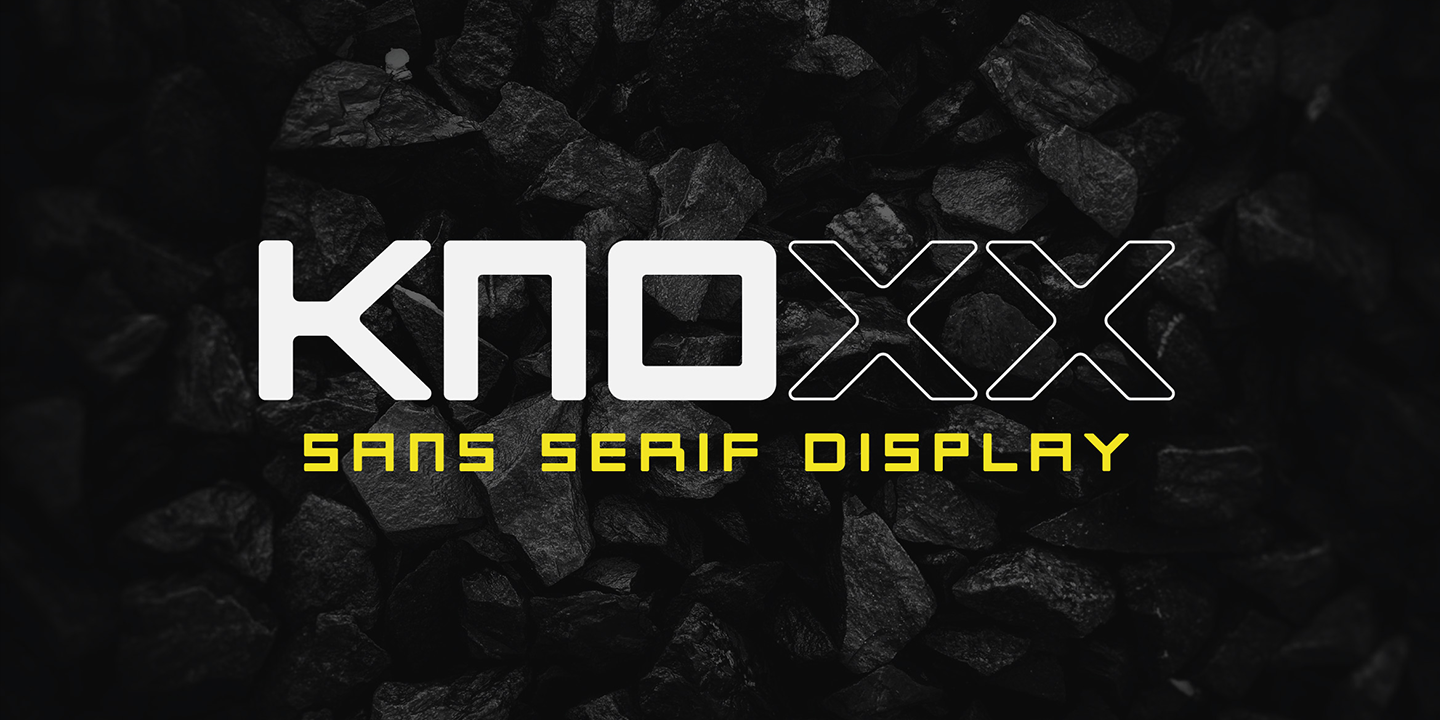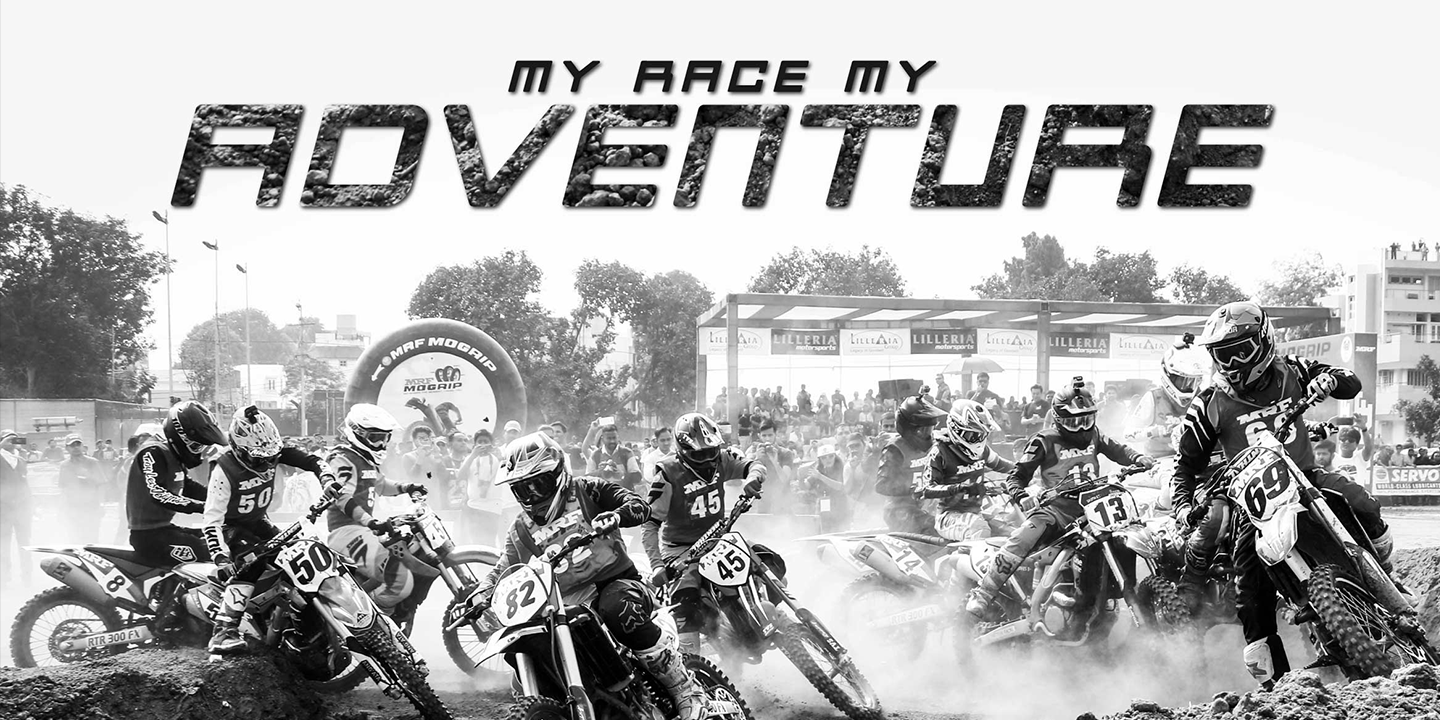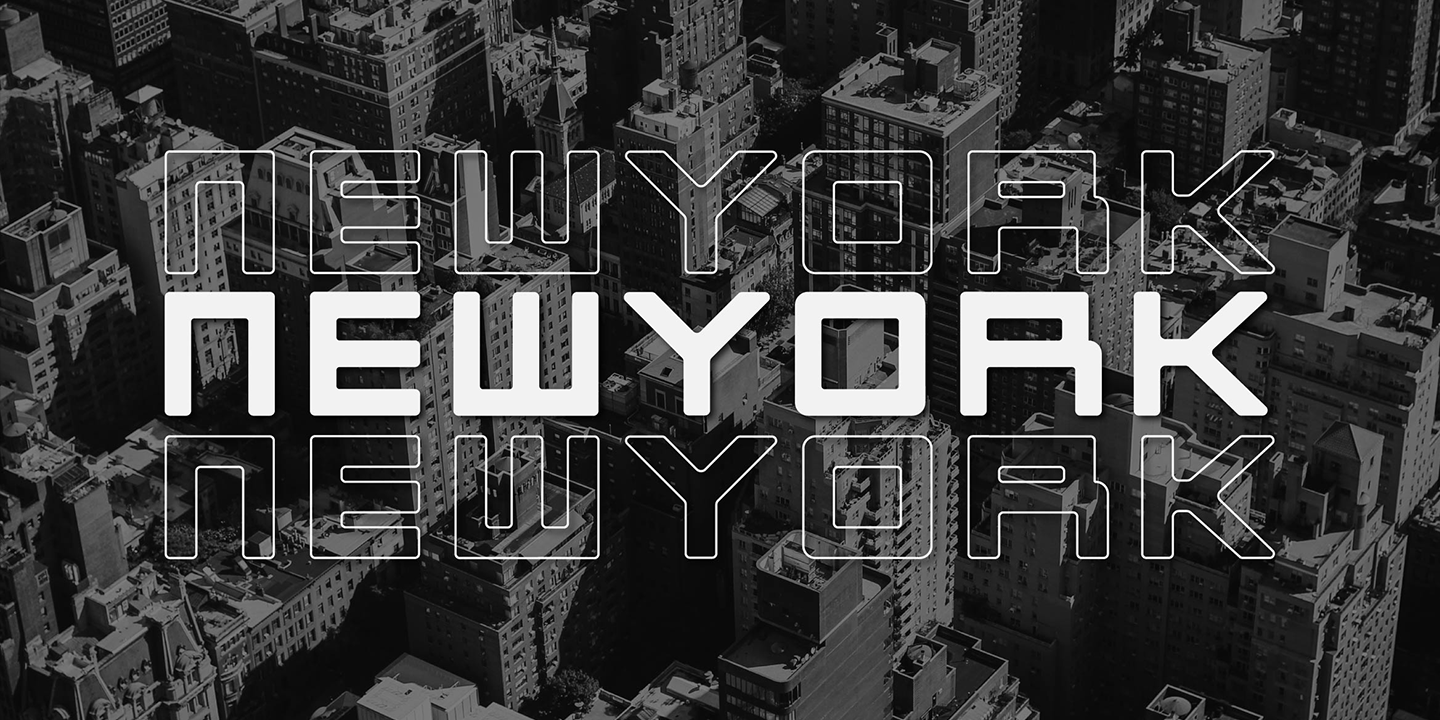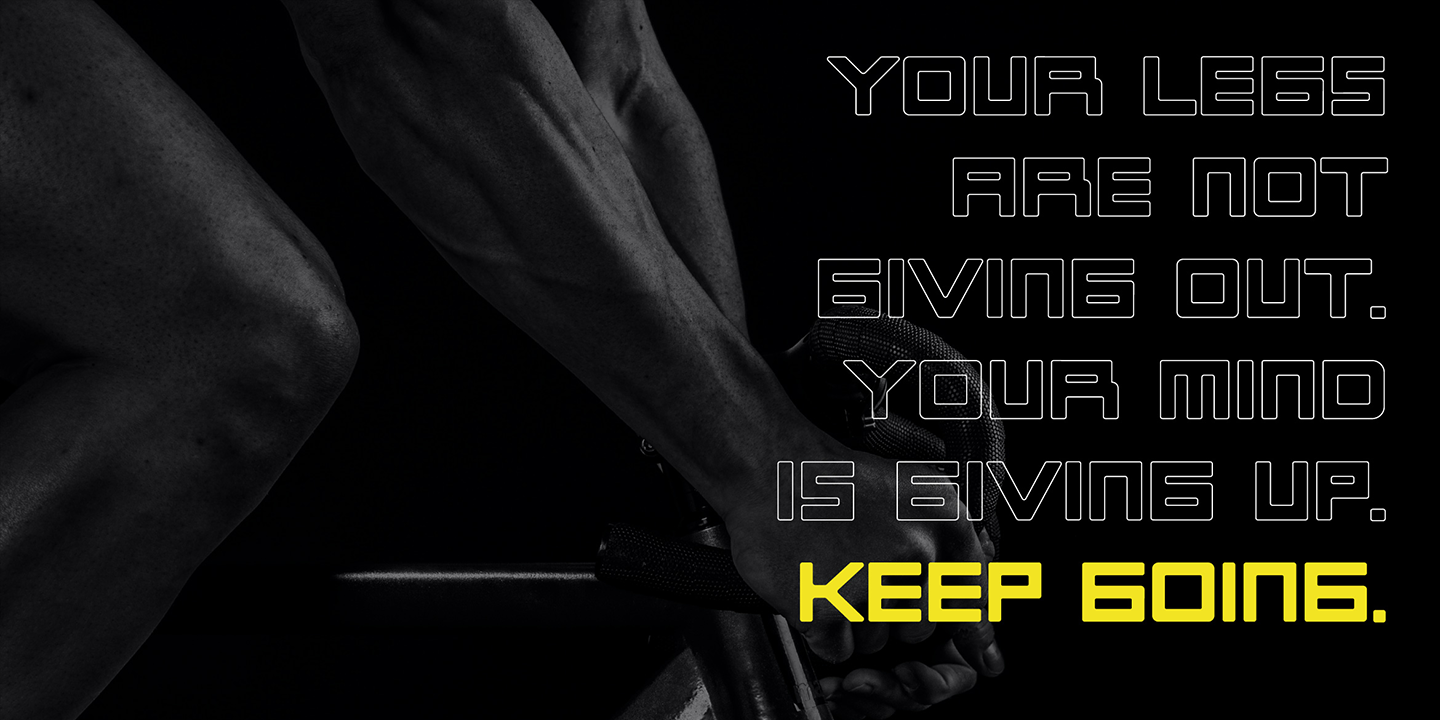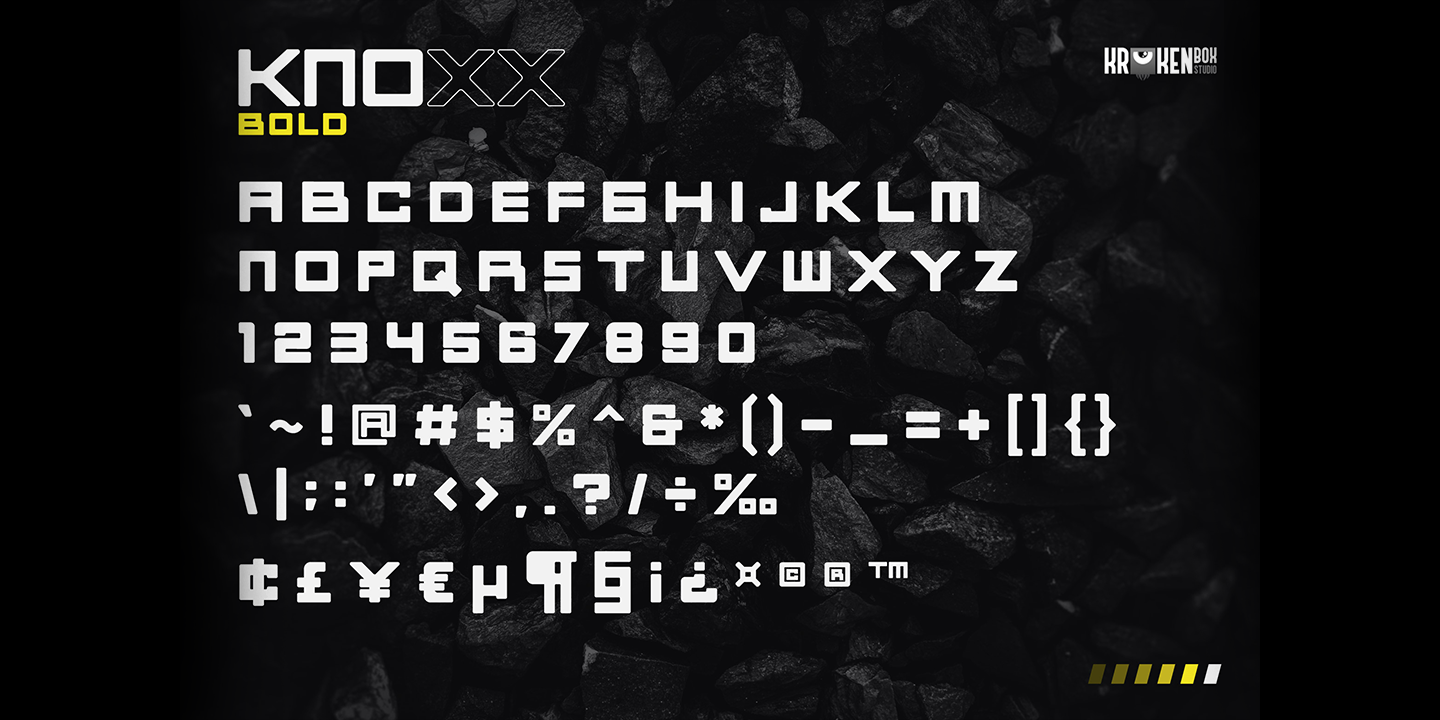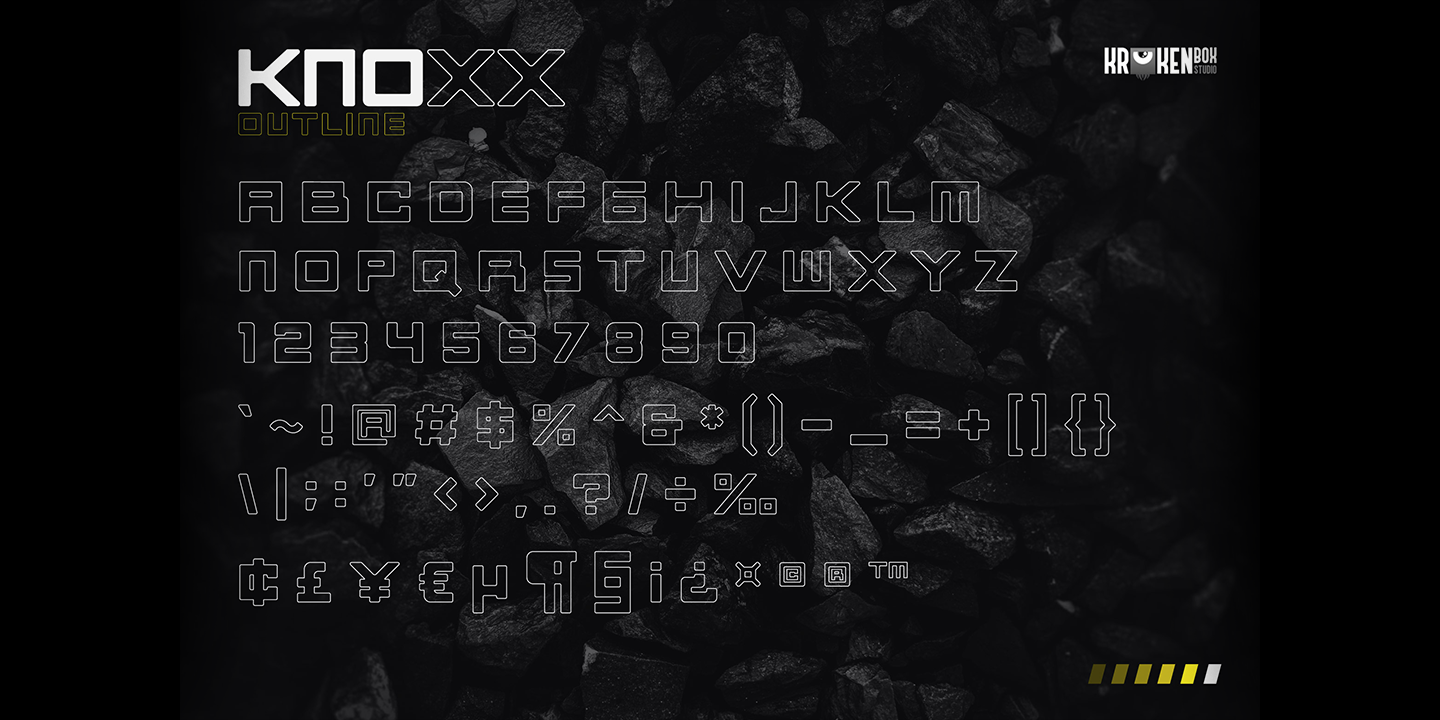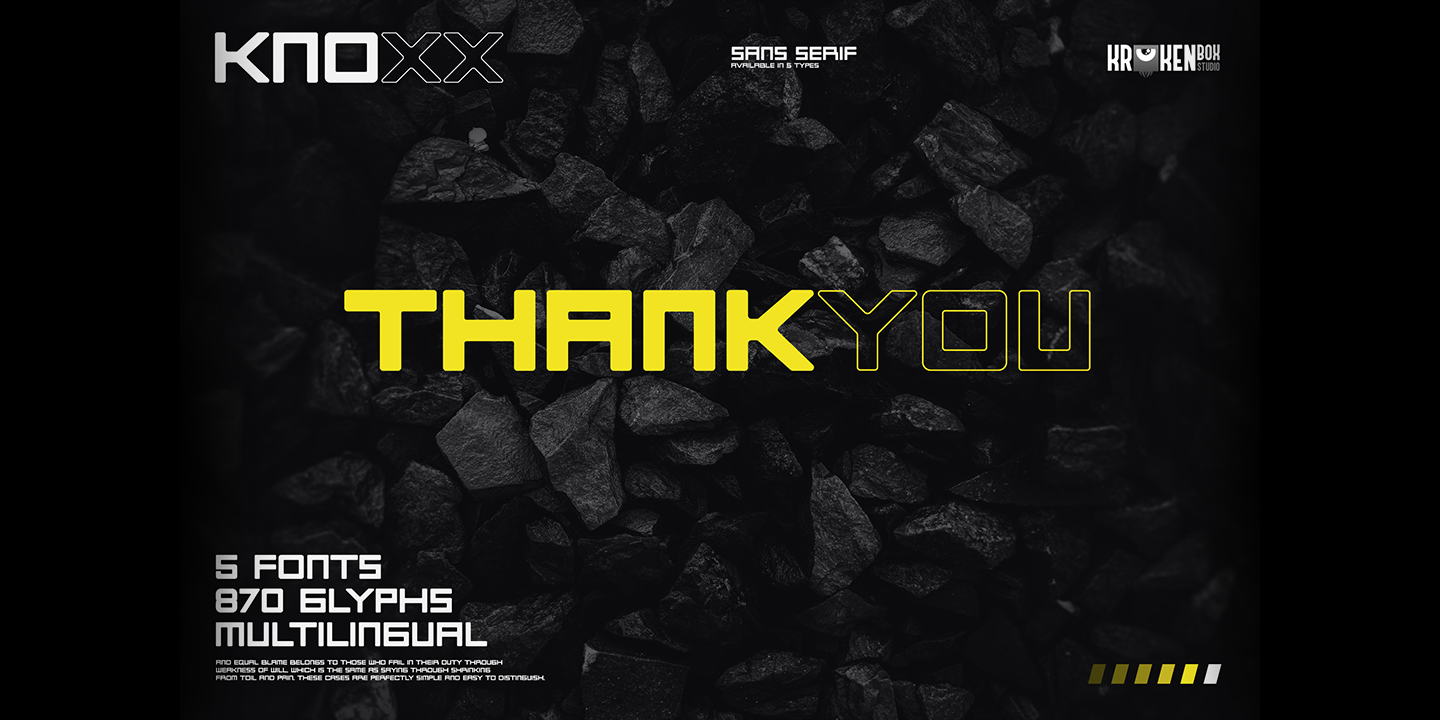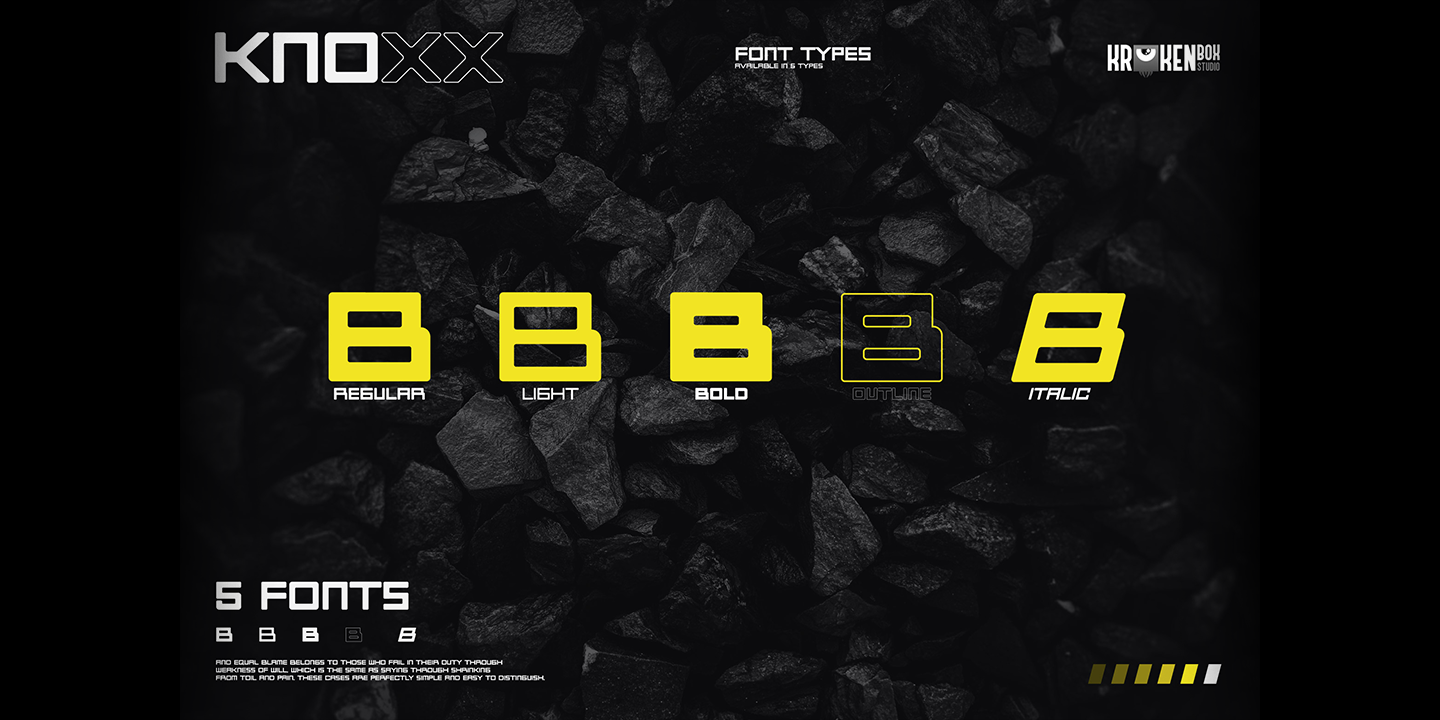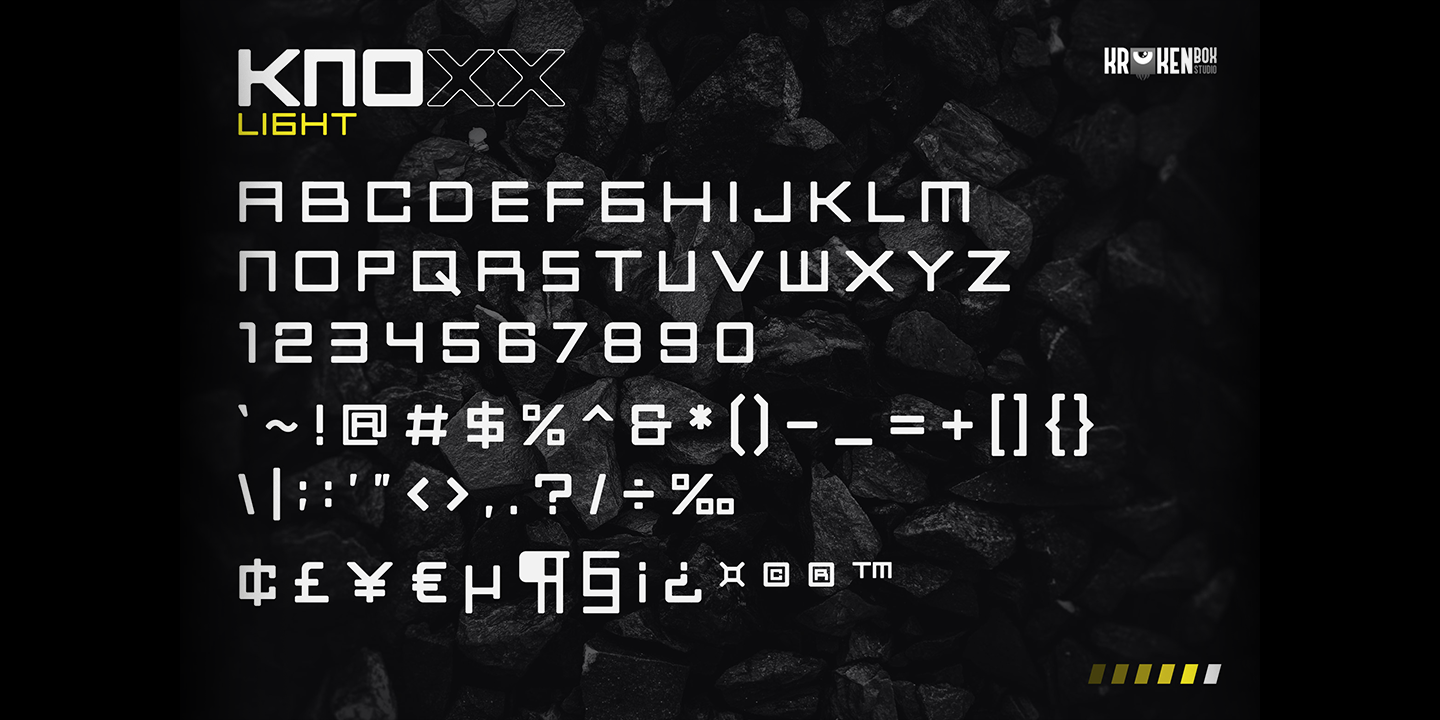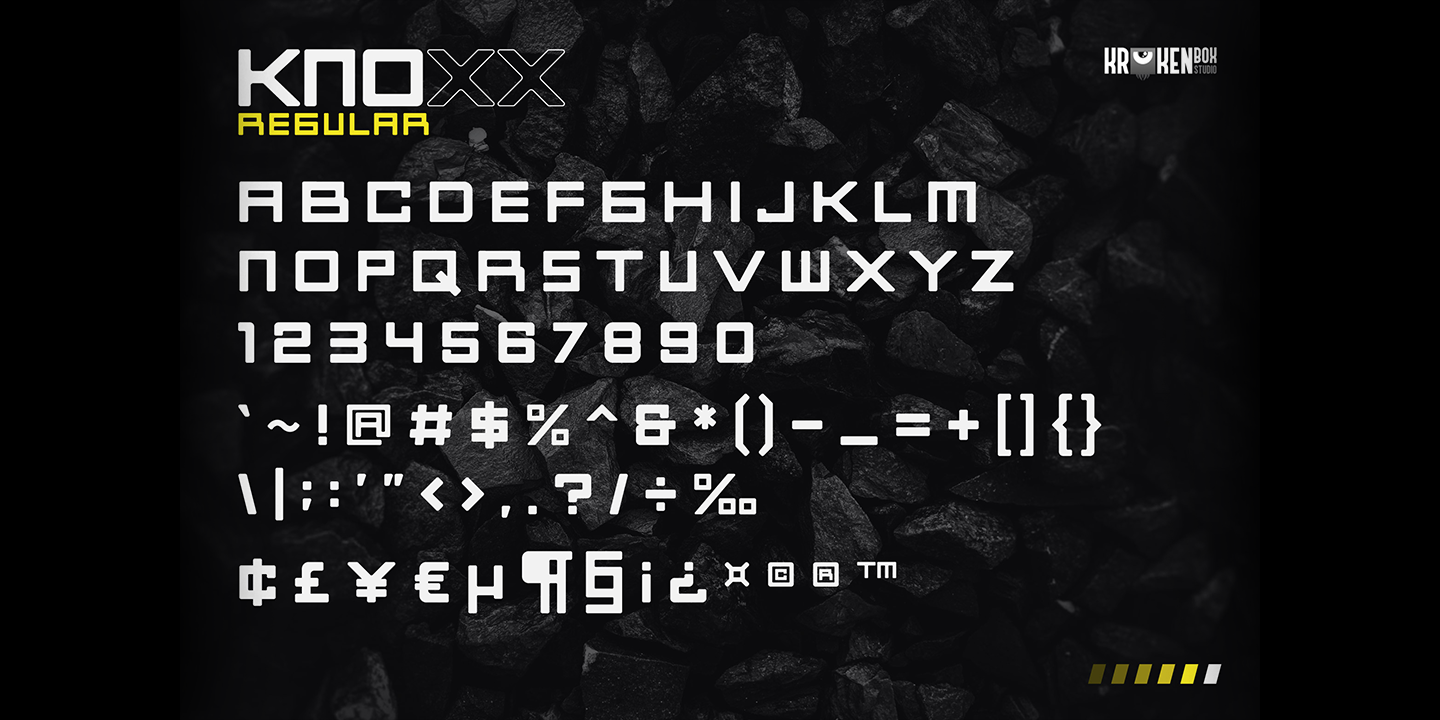
Knoxx is an extended sans serif typeface. The family includes 5 fonts with stylised caps for each. It has modern, classy, and cool. It’s a great font for fashion, apparel projects, signature, album cover, logo, branding, magazine, social media, & advertisements, but also works great for other projects.